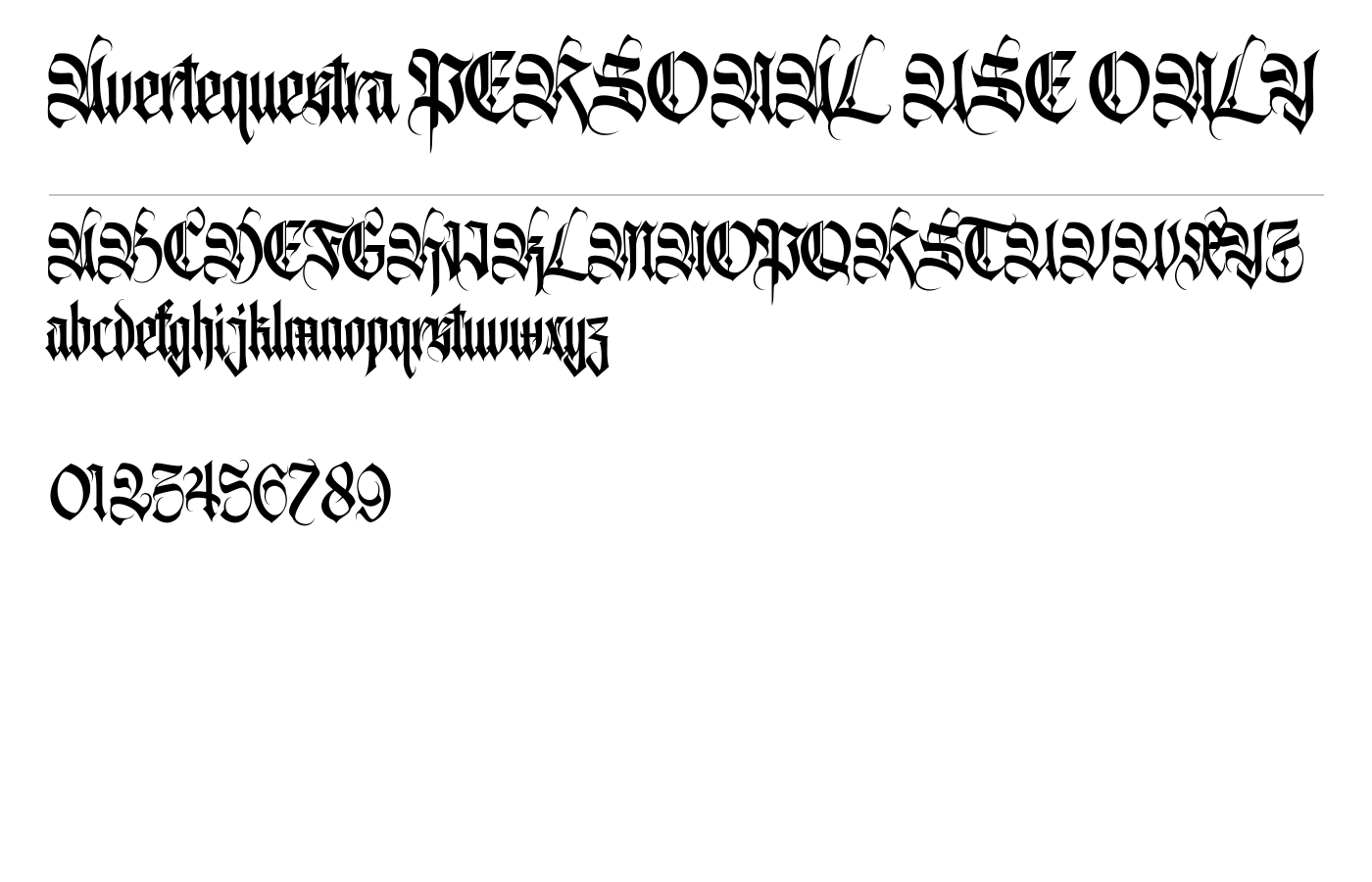
Avertequestra is a bold blackletter-style font with intricate, sharp strokes and high contrast between thick and thin elements, giving it a dramatic, gothic appearance. Its dense, condensed letterforms and ornate details evoke a vintage, medieval feel that works well for decorative headlines, logos, and designs needing an old-world, rebellious edge. This font adds a striking, authoritative character to projects that want to stand out with a historic or alternative vibe.
Avertequestra PERSONAL USE ONLY Font
About Avertequestra PERSONAL USE ONLY Font